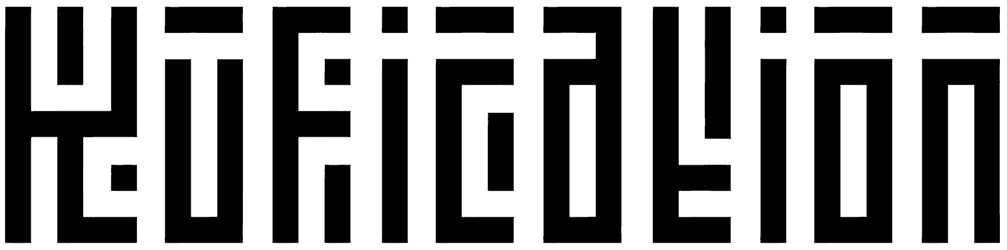
Kufication Font
How awesome would it be to introduce some mystery to your content with a font like Kufication? This maze font, with its peculiar design, makes the reader’s mind wander about your content. Yeah, this display font is hard to read, and that’s what makes it mysterious.
Designed by: Letterhanna Type